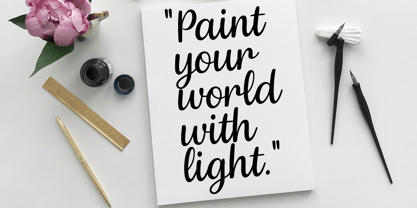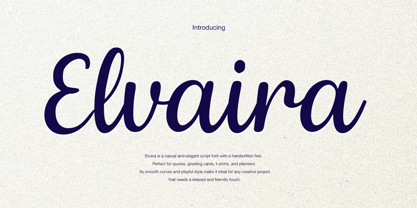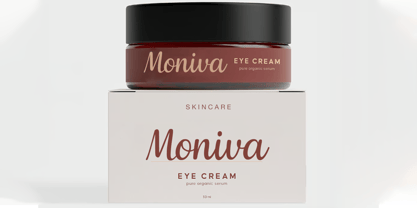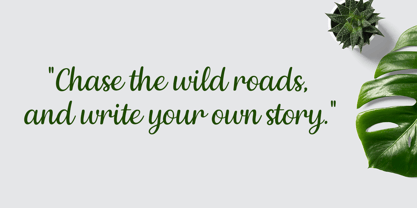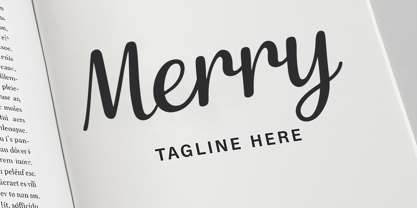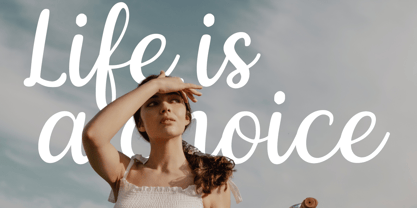
Elvaira
by Cocodesign
The Elvaira Font Family was designed by Muhammad Zaini and published by Cocodesign. Elvaira contains 1 styles.
Elvara is a casual and elegant script font with a handwritten feel.
Perfect for quotes, greeting cards, t-shirts, and planners.
Its smooth curves and playful style make it ideal for any creative project
that needs a relaxed and friendly touch.